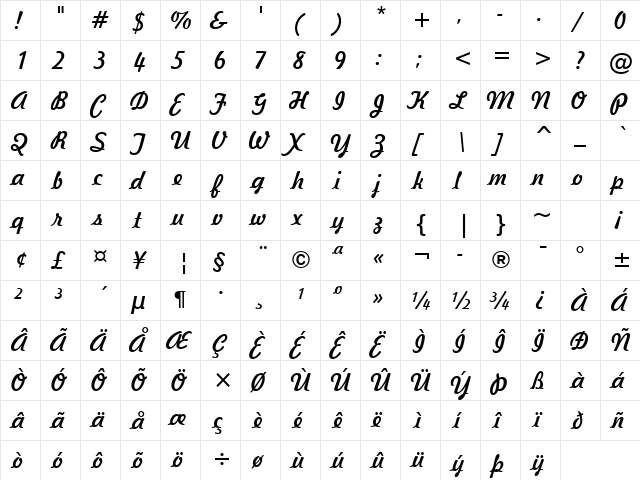
Freehand521 BT Regular Font Preview
Freehand521 BT Regular
Freehand521 BT Regular Font Details
Design Context for Freehand521 BT Typeface
Freehand521 BT flows with the natural rhythm of handwritten lettering, making it ideal for designs that call for warmth and personal expression.
Font Pairing: Combine Freehand521 BT with a simple geometric sans for maximum contrast — the tension between flowing curves and clean structure is a classic typographic pairing.
Pro Tip: Use Freehand521 BT for short runs of text — names, titles, or taglines. Extended body copy in script faces tires the eye quickly.